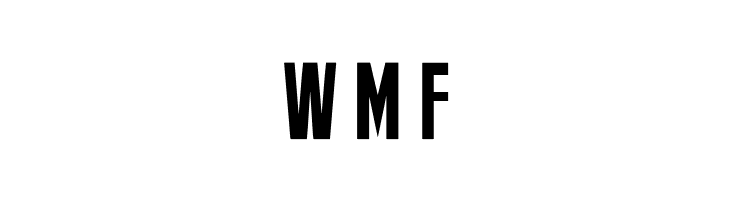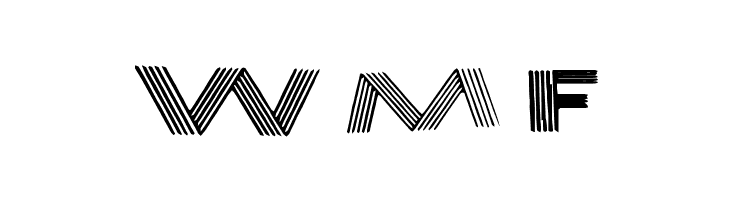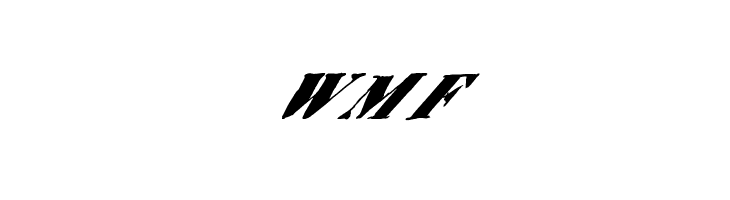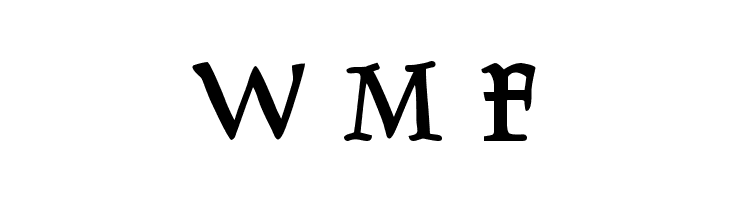
( Fonts by Dieter Schumacher )
A bold, geometric font with a futuristic and tech-inspired design.
A dynamic and elegant italic font with smooth curves and moderate contrast.
( Paul Lloyd Fonts )
A bold and striking font with thick strokes and a strong presence.
( Fonts by James Paul Fajardo http://www.myfonts.com/fonts/fajardo/james-paul/ )
A dynamic and expressive handwritten font with fluid, irregular strokes.
A bold, italic font with a modern and sleek design.
A modern, italicized font with a sleek and dynamic style.
( Fonts by Mr Fisk - Mike Larsson - fontorama.net )
An artistic, graffiti-inspired font with irregular, flowing letterforms.
( Paul Lloyd Fonts )
A wide, italicized font with a modern and sleek appearance.
( Paul Lloyd Fonts )
A modern, condensed font with a sleek and professional appearance.
( Paul Lloyd Fonts )
A modern, wide font with bold uppercase and cohesive lowercase letters.
( Paul Lloyd Fonts )
A modern, clean font with balanced characters and high readability.
( Paul Lloyd Fonts )
A modern, clean font with small caps and uniform design.
( Paul Lloyd Fonts )
A bold, wide font with thick strokes and modern appeal.
( Paul Lloyd Fonts )
A bold, wide, and italicized font with a modern and impactful style.
( Paul Lloyd Fonts )
A sleek, modern, light italic font with smooth curves and balanced spacing.
( Paul Lloyd Fonts )
A modern, bold, and condensed font with high contrast and tight spacing.
( Paul Lloyd Fonts )
A wide, modern font with clean lines and balanced spacing.
( Paul Lloyd Fonts )
Bold and italicized font with a modern, dynamic style.
( Paul Lloyd Fonts )
A sleek, modern italic font with smooth curves and consistent stroke width.
( Paul Lloyd Fonts )
A modern, condensed, bold, and italic font with high contrast and tight spacing.